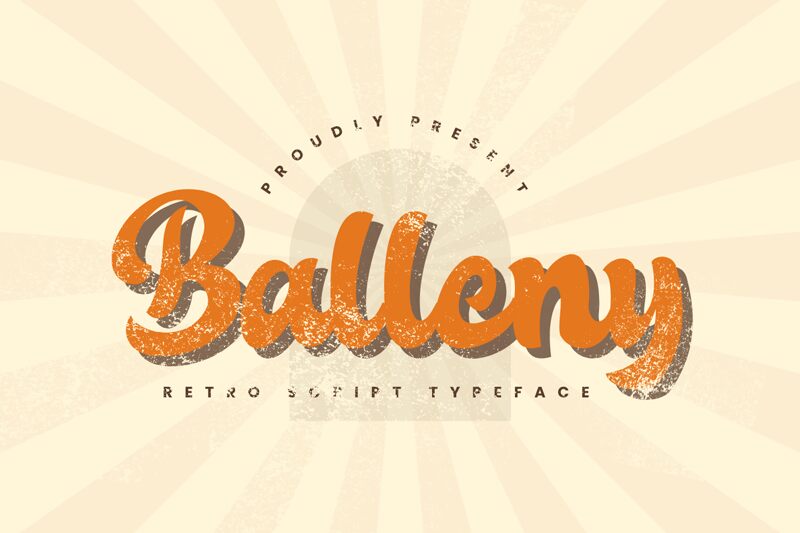
Balleny
Balleny, a creation by Letterayu, exudes the charm of an old school brush font with its bold, flowing strokes and a distinctly handcrafted aesthetic. The font's broad, sweeping curves and the occasional flair of extended tails lend it a casual yet deliberate character. Its generous proportions resonate with a welcoming warmth that seems to dance across the page.
This font's style makes it well-suited for projects that require a personal touch, such as invitations, branding for artisanal products, or even eye-catching social media graphics. Balleny's nostalgic vibe also pairs beautifully with vintage-inspired designs where its robust form can create an impactful statement without overpowering the accompanying elements.